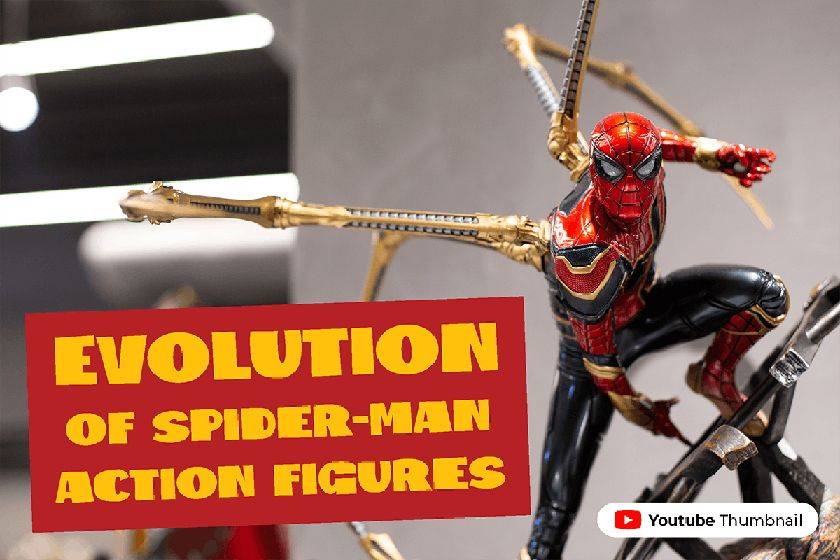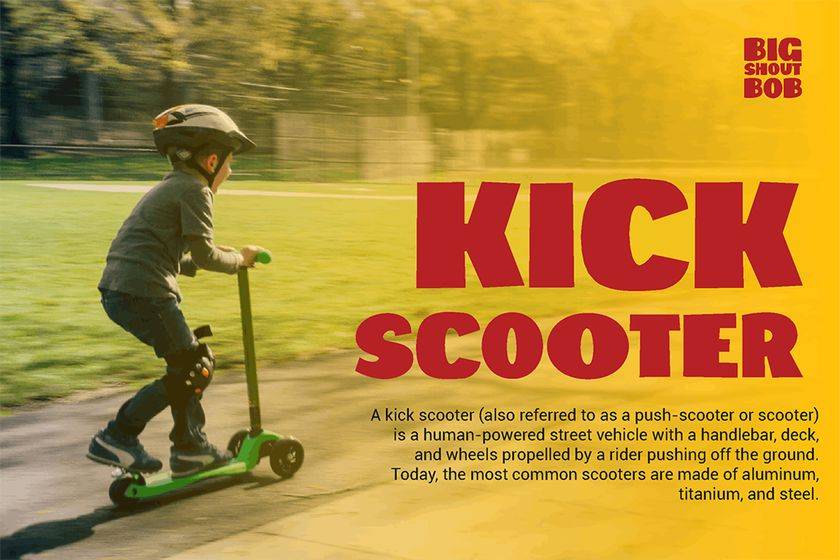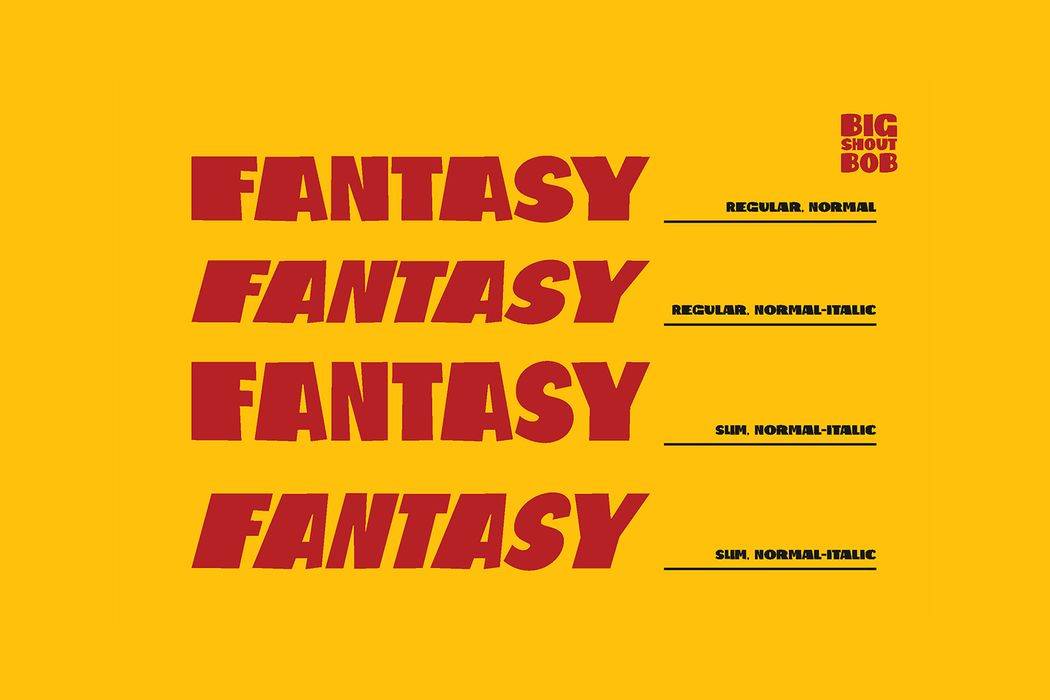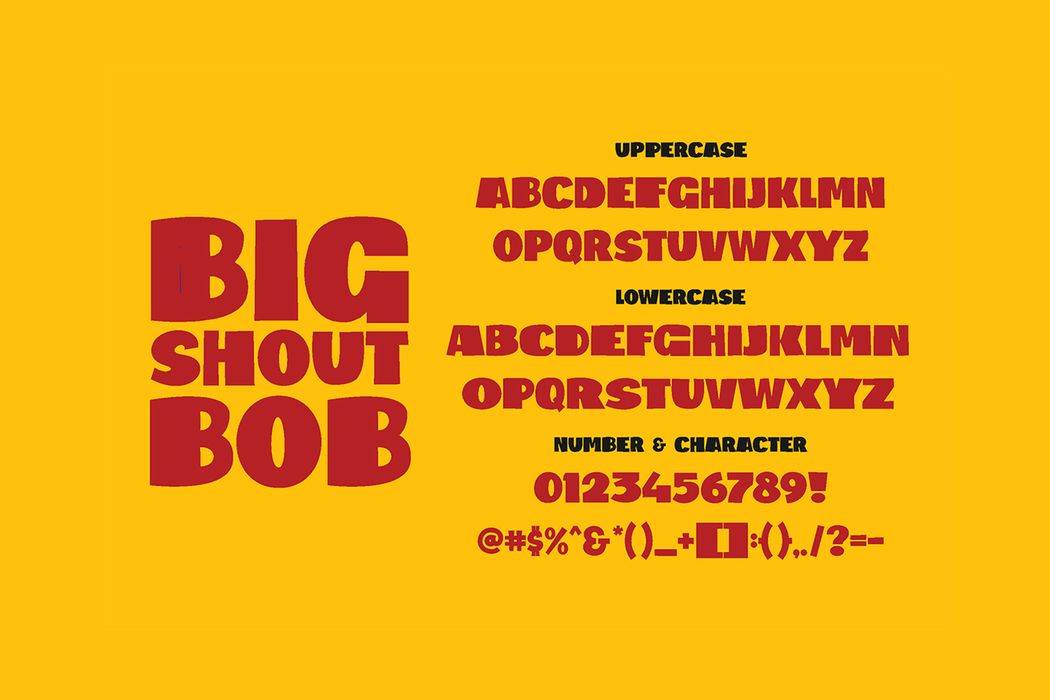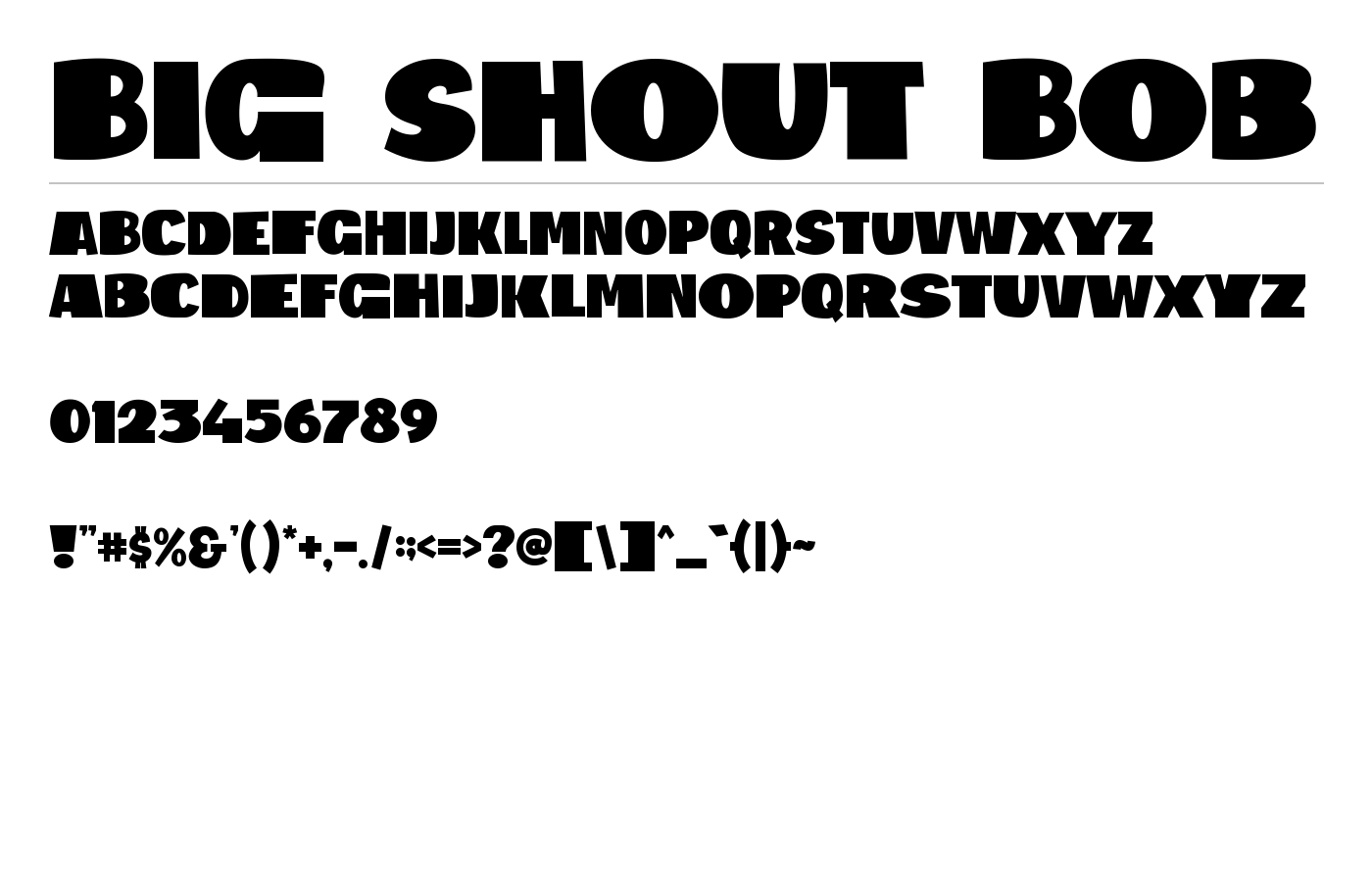
Big Shout Bob is a bold, chunky sans serif font with a playful and energetic vibe. Its heavy weight and slightly irregular shapes give it a strong, impactful presence perfect for grabbing attention in headlines, logos, and posters. This font works well for brands wanting a fun, confident look that stands out in creative, casual, or youthful design contexts.
Big Shout Bob Font
About Big Shout Bob Font
| Font family | Big Shout Bob Font |
| Designer | Sahirul |
| Trademark | TKK Studio |